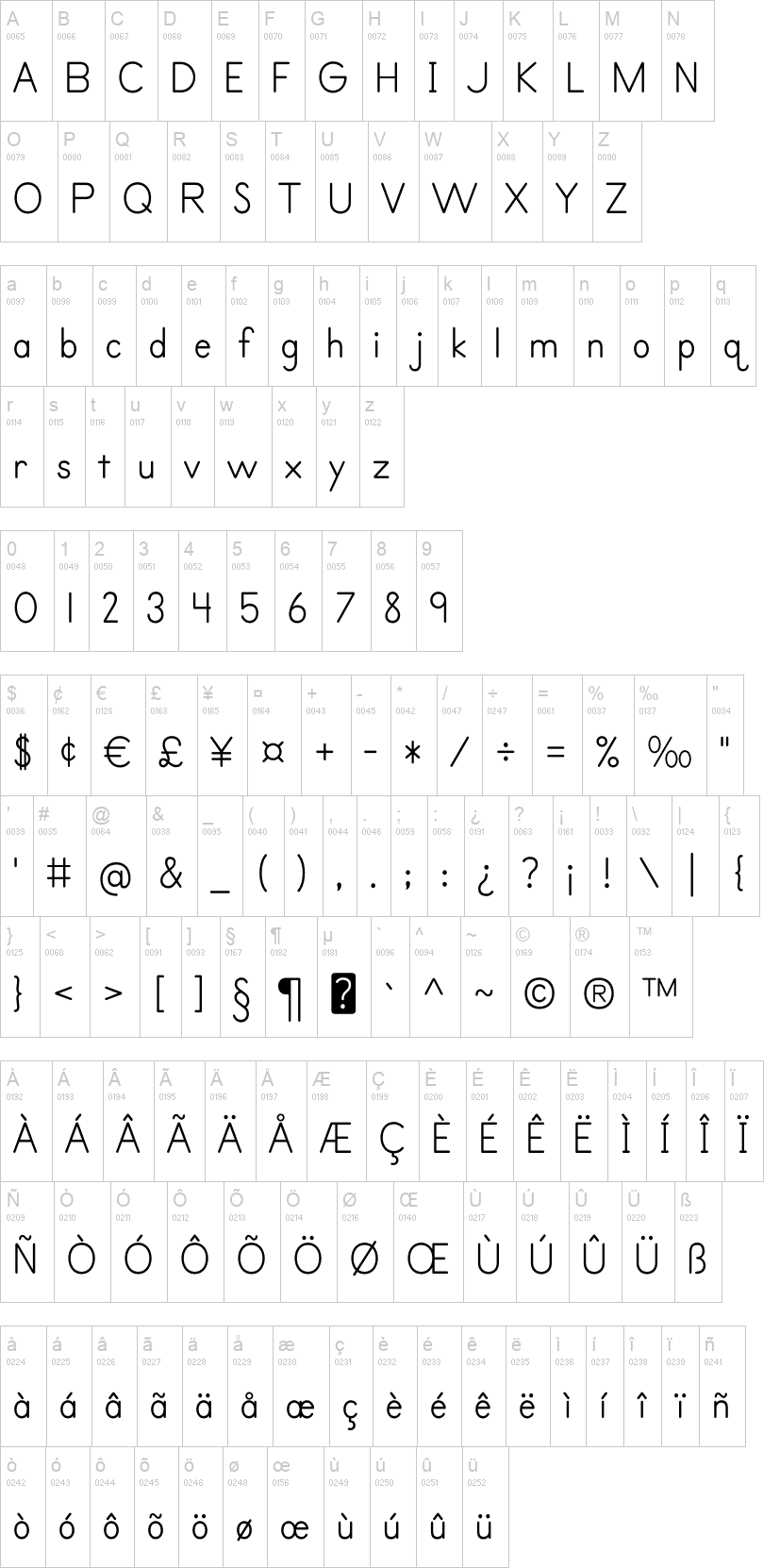
Primer Print Font
Primer Print Font - Web primer is a typeface inspired by printing instruction papers. This typeface has two styles and was published by typodermic fonts inc. Download the primer print font by typodermic fonts. To access a barred j, a hooked 1 and a hooked q, use your application’s stylistic alternates option. Primer print is a sans serif font family. To access a barred j, a hooked 1 and a hooked q, use your application’s stylistic altern. Web the primer print font has been downloaded 9,517 times. Web download primer font family · free for commercial use · primer is a typeface inspired by printing instruction papers.
Primer print is a sans serif font family. This typeface has two styles and was published by typodermic fonts inc. Web primer is a typeface inspired by printing instruction papers. To access a barred j, a hooked 1 and a hooked q, use your application’s stylistic altern. To access a barred j, a hooked 1 and a hooked q, use your application’s stylistic alternates option. Download the primer print font by typodermic fonts. Web download primer font family · free for commercial use · primer is a typeface inspired by printing instruction papers. Web the primer print font has been downloaded 9,517 times.
Download the primer print font by typodermic fonts. Primer print is a sans serif font family. To access a barred j, a hooked 1 and a hooked q, use your application’s stylistic altern. This typeface has two styles and was published by typodermic fonts inc. Web primer is a typeface inspired by printing instruction papers. Web download primer font family · free for commercial use · primer is a typeface inspired by printing instruction papers. To access a barred j, a hooked 1 and a hooked q, use your application’s stylistic alternates option. Web the primer print font has been downloaded 9,517 times.
Primer print is a sans serif font family. To access a barred j, a hooked 1 and a hooked q, use your application’s stylistic alternates option. Web download primer font family · free for commercial use · primer is a typeface inspired by printing instruction papers. Web the primer print font has been downloaded 9,517 times. This typeface has two.
To access a barred j, a hooked 1 and a hooked q, use your application’s stylistic altern. Web download primer font family · free for commercial use · primer is a typeface inspired by printing instruction papers. Web primer is a typeface inspired by printing instruction papers. Download the primer print font by typodermic fonts. Primer print is a sans.
Primer Print Font
Primer print is a sans serif font family. Download the primer print font by typodermic fonts. To access a barred j, a hooked 1 and a hooked q, use your application’s stylistic altern. Web download primer font family · free for commercial use · primer is a typeface inspired by printing instruction papers. This typeface has two styles and was.
This typeface has two styles and was published by typodermic fonts inc. Web primer is a typeface inspired by printing instruction papers. Download the primer print font by typodermic fonts. Web the primer print font has been downloaded 9,517 times. To access a barred j, a hooked 1 and a hooked q, use your application’s stylistic altern.
To access a barred j, a hooked 1 and a hooked q, use your application’s stylistic altern. Web download primer font family · free for commercial use · primer is a typeface inspired by printing instruction papers. To access a barred j, a hooked 1 and a hooked q, use your application’s stylistic alternates option. Primer print is a sans.
Web primer is a typeface inspired by printing instruction papers. Web the primer print font has been downloaded 9,517 times. To access a barred j, a hooked 1 and a hooked q, use your application’s stylistic altern. Web download primer font family · free for commercial use · primer is a typeface inspired by printing instruction papers. This typeface has.
Primer Print Bold free Font What Font Is
Web primer is a typeface inspired by printing instruction papers. Web download primer font family · free for commercial use · primer is a typeface inspired by printing instruction papers. To access a barred j, a hooked 1 and a hooked q, use your application’s stylistic alternates option. This typeface has two styles and was published by typodermic fonts inc..
Primer Print Font Free Download
To access a barred j, a hooked 1 and a hooked q, use your application’s stylistic altern. Download the primer print font by typodermic fonts. Web the primer print font has been downloaded 9,517 times. This typeface has two styles and was published by typodermic fonts inc. Web primer is a typeface inspired by printing instruction papers.
Primer Print Font All Free Fonts
To access a barred j, a hooked 1 and a hooked q, use your application’s stylistic altern. Web download primer font family · free for commercial use · primer is a typeface inspired by printing instruction papers. This typeface has two styles and was published by typodermic fonts inc. Download the primer print font by typodermic fonts. Primer print is.
Web primer is a typeface inspired by printing instruction papers. To access a barred j, a hooked 1 and a hooked q, use your application’s stylistic alternates option. Web download primer font family · free for commercial use · primer is a typeface inspired by printing instruction papers. To access a barred j, a hooked 1 and a hooked q, use your application’s stylistic altern.
Primer print is a sans serif font family. Web the primer print font has been downloaded 9,517 times.